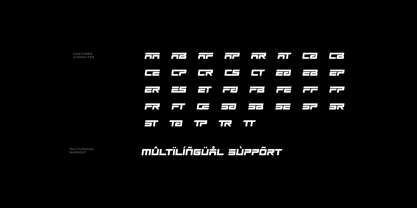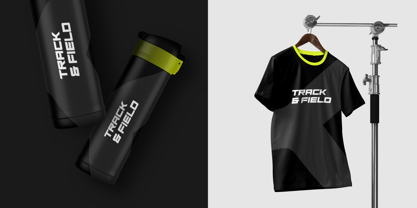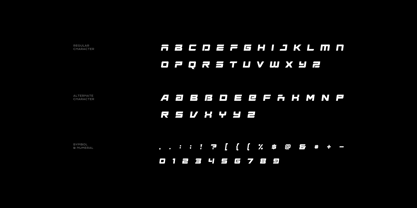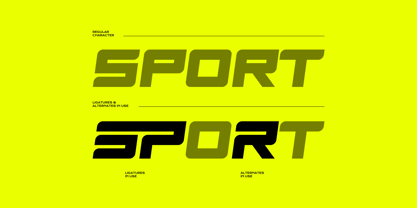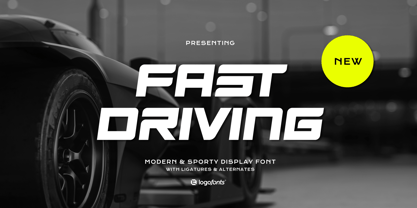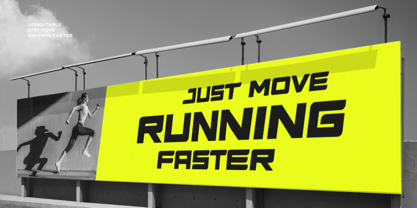
Fast Driving
The Fast Driving Font Family was designed by Anna Safitri and published by Logofonts. Fast Driving contains 1 styles. More about this family
Fast Driving is a bold and innovative futuristic typeface that redefines the boundaries of modern design. With its clean, angular lines, minimalistic approach, and unique letterforms, this typeface channels the spirit of tomorrow. Perfect for high-tech brands, digital interfaces, and sci-fi-inspired projects, Fast Driving creates an unmistakable visual identity that feels ahead of its time. Its distinctive style blends geometric precision with dynamic energy, making it a versatile choice for both display typography and branding. Whether you’re designing a cutting-edge website, a futuristic logo, or immersive digital experiences, Fast Driving brings a sleek, modern edge to any creative project.